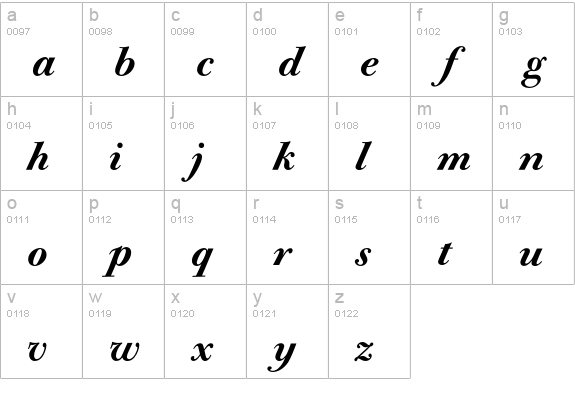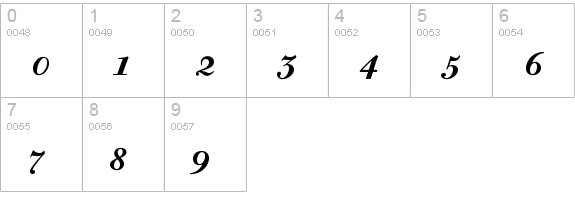
Bodoni Old Face Expert Medium Italic OsF Font Details
Bodoni Old Face Expert Medium Italic OsF is a balanced, medium-weight, italic variant in the Bodoni typeface family \xE2\x80\x94 well suited to sub-headlines, navigation, and balanced editorial work.
Bodoni Old Face Expert Medium Italic OsF font is a timeless and elegant typeface that exudes sophistication and style. With its graceful curves and distinctive serifs, this font is perfect for adding a touch of class to any design project. The italicized version of Bodoni Old Face Expert Medium adds a dynamic flair, making it ideal for conveying a sense of movement and energy. What sets this font apart is not just its beauty, but also its versatility. Whether you're designing a wedding invitation, a book cover, or a logo, Bodoni Old Face Expert Medium Italic OsF font will elevate your work to the next level. And the best part? This stunning font is available for free download at FontsMarket.com. So why wait? Add Bodoni Old Face Expert Medium Italic OsF to your font collection today and watch your designs come to life in a whole new way.